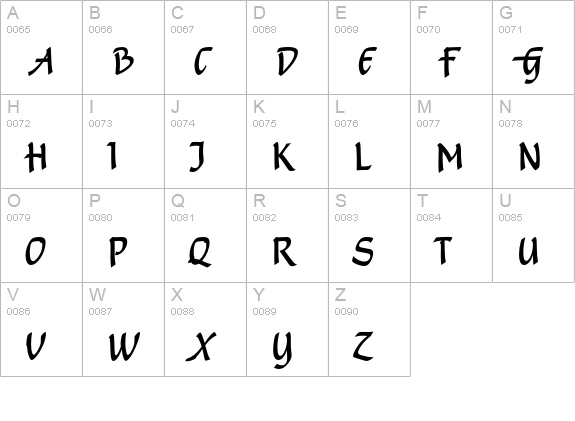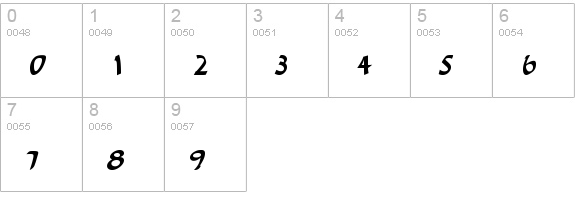
ShamrockICG Font Details
ShamrockICG is a beautifully crafted font that exudes elegance and sophistication. Its sleek and modern design is perfect for adding a touch of class to any project. The precise lines and intricate details of this font make it visually striking and highly versatile. What sets ShamrockICG apart from other fonts is not only its stunning aesthetics, but also the fact that it is completely free. Yes, you read that right - this exceptional font is freely available to download at FontsMarket.com. Now, you can elevate your creative endeavors without worrying about breaking the bank. Whether you are designing a logo, creating a website, or working on a branding project, ShamrockICG will effortlessly enhance your work. Its clean and legible characters make it easy to read, ensuring that your message is always clear and impactful. With its wide range of glyphs and characters, ShamrockICG offers endless possibilities for customization. Add a touch of personalization to your designs by experimenting with different weights, sizes, and styles. The versatility of ShamrockICG allows you to create truly unique and memorable creations. So why wait? Download ShamrockICG today and unlock the full potential of your design projects. Say goodbye to limitations and hello to limitless creativity. With ShamrockICG, the world is your canvas.